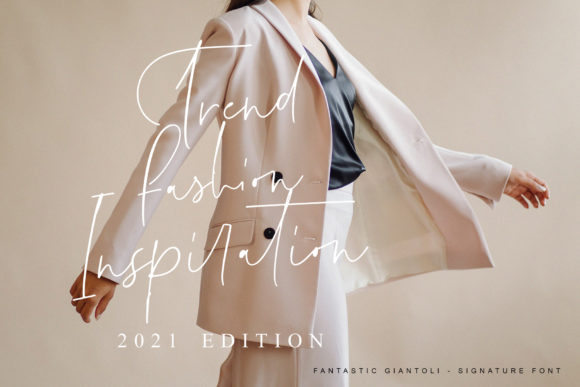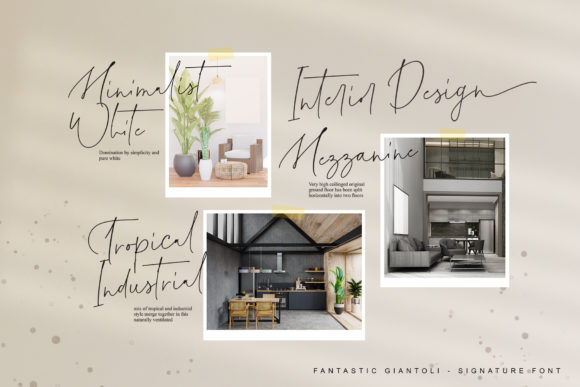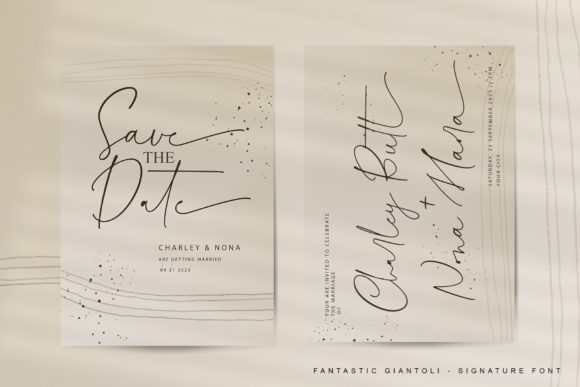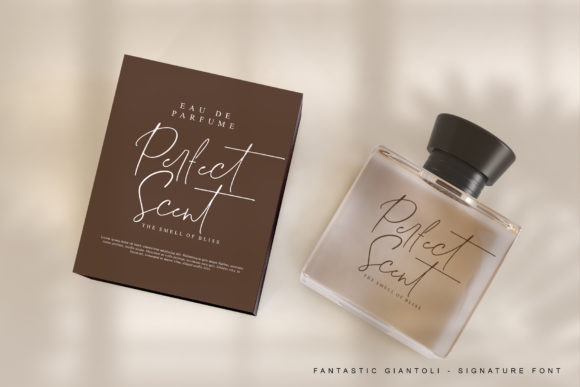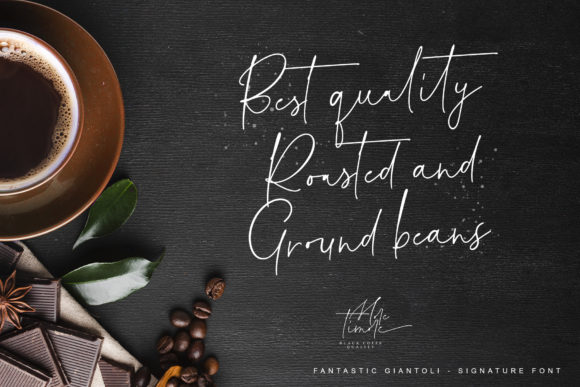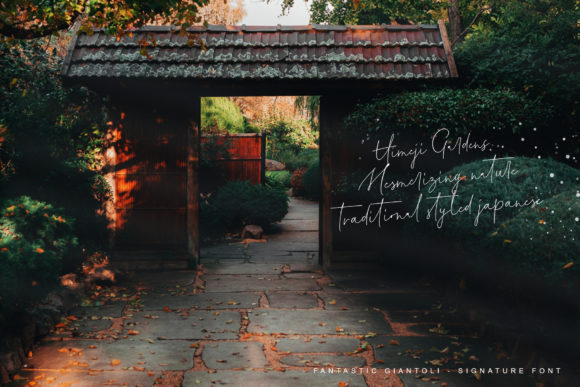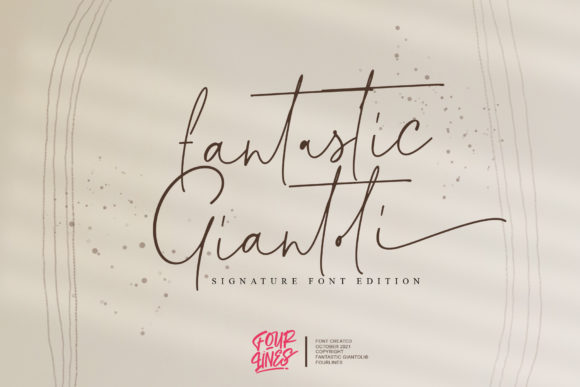
Fantastic Giantoli Font: Elevate Your Designs with Luxury and Elegance
Are you looking for a font that can add a touch of luxury and sophistication to your design projects? Look no further than the Fantastic Giantoli Font! This delicate calligraphy typeface is perfect for designers and crafters who want to create stunning visuals that exude elegance and refinement.
What Makes Fantastic Giantoli Font So Special?
Fantastic Giantoli Font is a beautifully crafted calligraphy typeface that is designed to add a luxury spark to any design project. Its delicate lines and swirling curves make it perfect for creating elegant and sophisticated designs that are sure to impress. Whether you’re working on a branding project, a wedding invitation, or a packaging design, this font is sure to elevate your work to the next level.
PUA Encoding for Easy Access to Glyphs and Ligatures
One of the best things about Fantastic Giantoli Font is that it’s PUA (Private Use Area) encoded. This means that you can access all of the amazing glyphs and ligatures with ease, making it simple to create complex and beautiful designs. With PUA encoding, you can easily insert glyphs and ligatures into your design using any software that supports OpenType features.
Fantastic Giantoli Font is perfect for designers and crafters who want to create stunning visuals that stand out from the crowd. Whether you’re a professional designer or a hobbyist, this font is easy to use and can be incorporated into a wide range of design projects. From digital designs to print projects, Fantastic Giantoli Font is the perfect choice for anyone looking to add a touch of luxury and elegance to their work.
Use Fantastic Giantoli Font for a Variety of Design Projects
Fantastic Giantoli Font is versatile and can be used for a wide range of design projects, including:
• Branding and logos: Create a luxurious and sophisticated brand identity with Fantastic Giantoli Font.
• Wedding invitations: Add a touch of elegance and romance to your wedding invitations with this beautiful font.
• Packaging design: Elevate your packaging design with a luxurious and refined font that will make your product stand out.
• Digital designs: Use Fantastic Giantoli Font to create stunning digital designs, such as social media graphics and website headers.
Why Choose Fantastic Giantoli Font?
There are many reasons why you should choose Fantastic Giantoli Font for your design projects. Here are just a few:
• Unique and elegant design: Fantastic Giantoli Font has a unique and elegant design that will add a touch of luxury to any design project.
• PUA encoded: With PUA encoding, you can easily access all of the amazing glyphs and ligatures.
• Easy to use: This font is easy to use and can be incorporated into a wide range of design projects.
• Versatile: Fantastic Giantoli Font can be used for a variety of design projects, from digital designs to print projects.
In conclusion, Fantastic Giantoli Font is a beautiful and elegant calligraphy typeface that is perfect for designers and crafters who want to add a touch of luxury and sophistication to their design projects. With its PUA encoding and easy-to-use design, this font is sure to elevate your work to the next level. Whether you’re working on a branding project, a wedding invitation, or a packaging design, Fantastic Giantoli Font is the perfect choice.